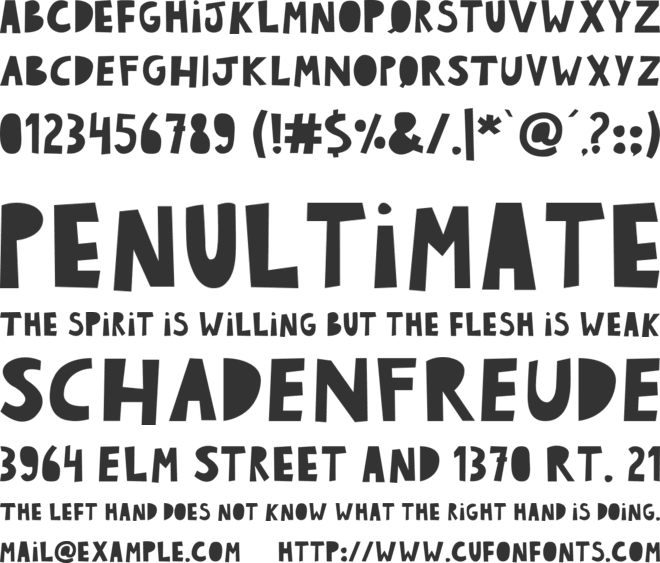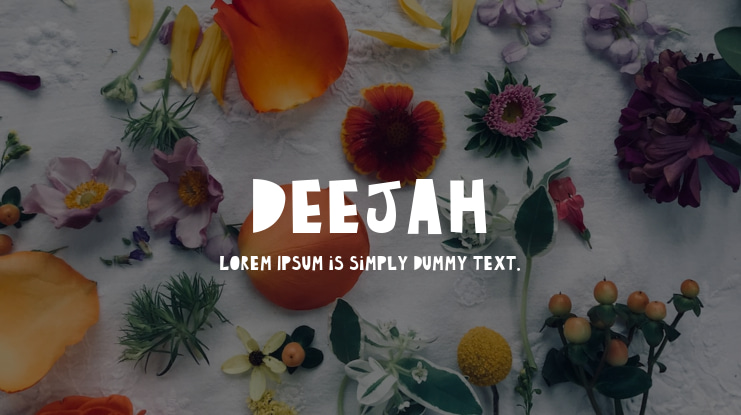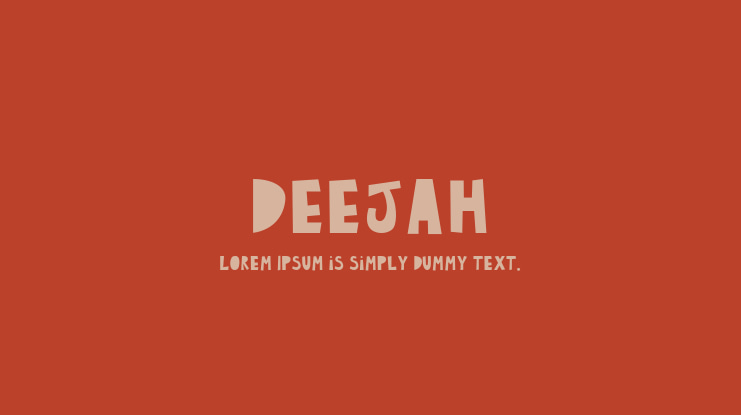
Deejah Font
A digital typographic font display is created from the artistic work of Catarina Dee Jah. Developed manually through paper cutting techniques, this typography aims to reflect the handcrafted production of letters envisioned by the artist. To follow her work, visit: [Catarina Dee Jah on Instagram](http://www.instagram.com/catarinadeejah)